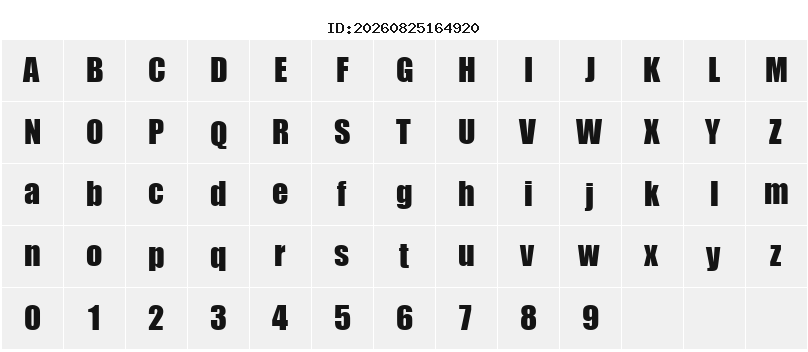
About SI Font.ttf
SI Font.ttf is a modern, elegant sans-serif font designed for ultimate readability and visual harmony. Perfect for branding, headlines, web design, and print materials.